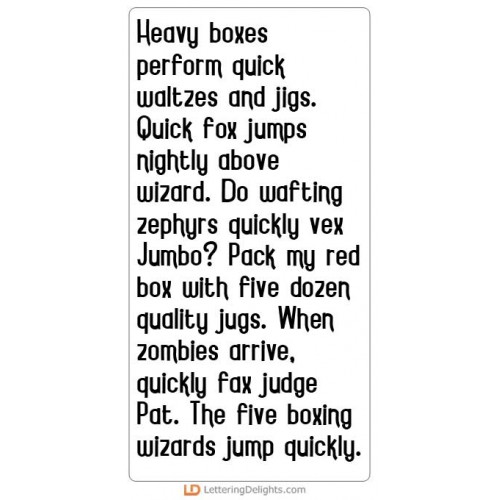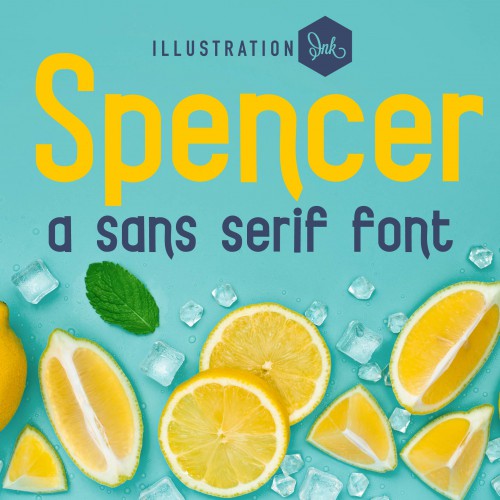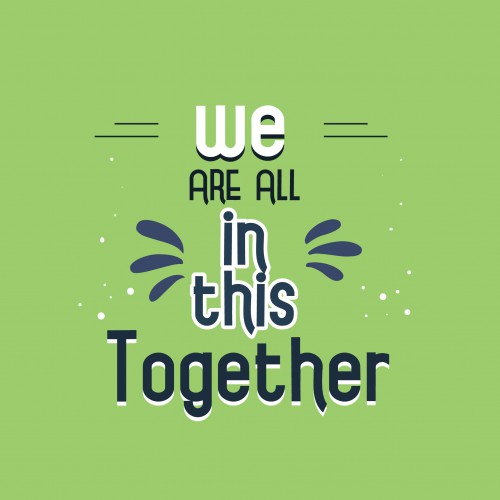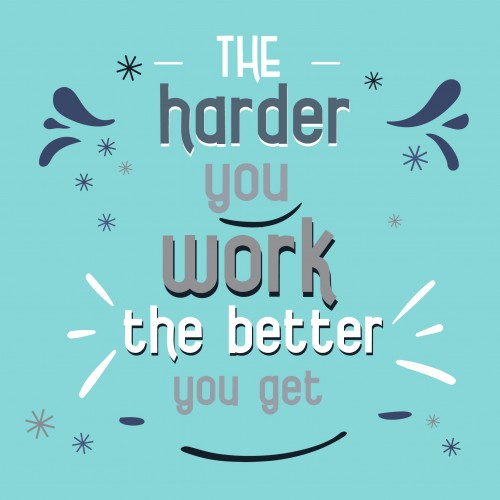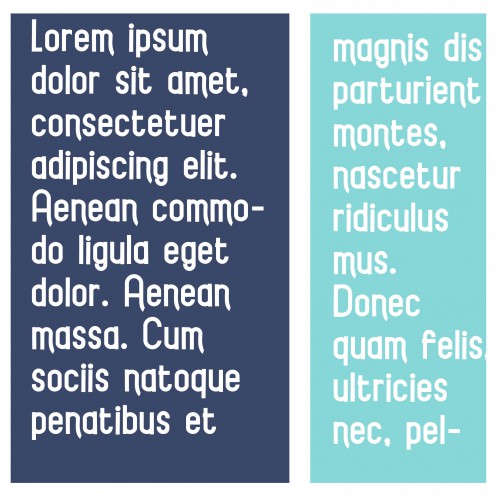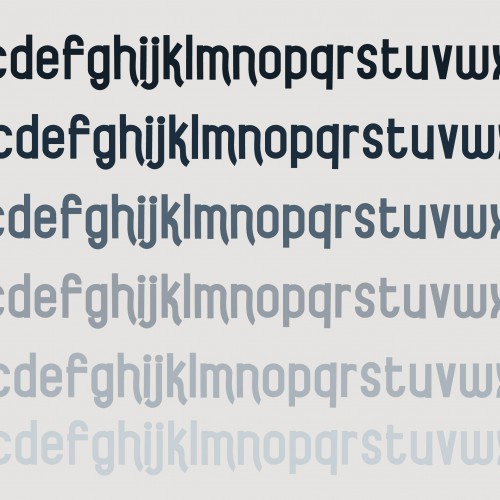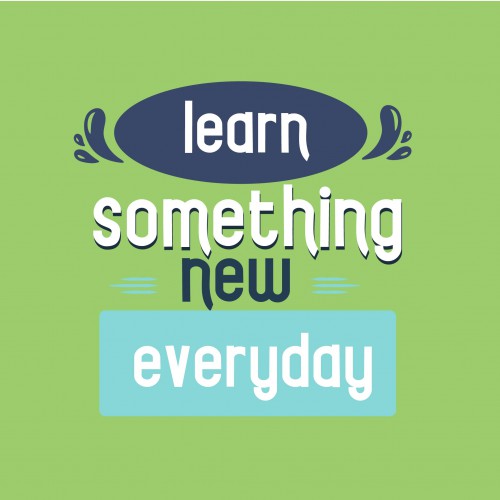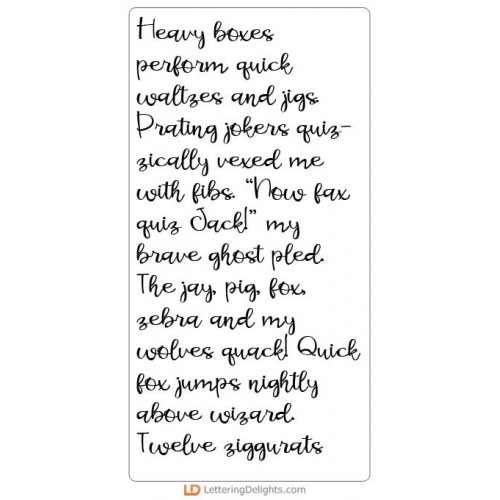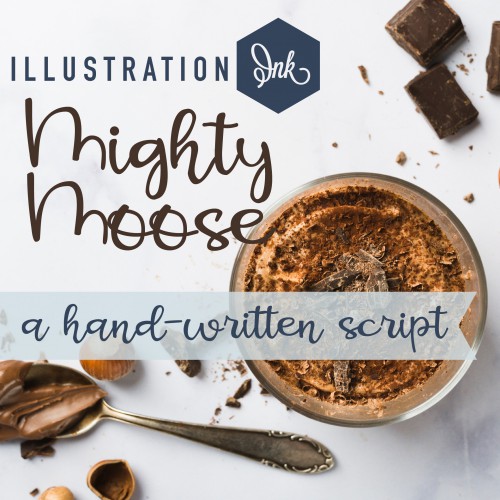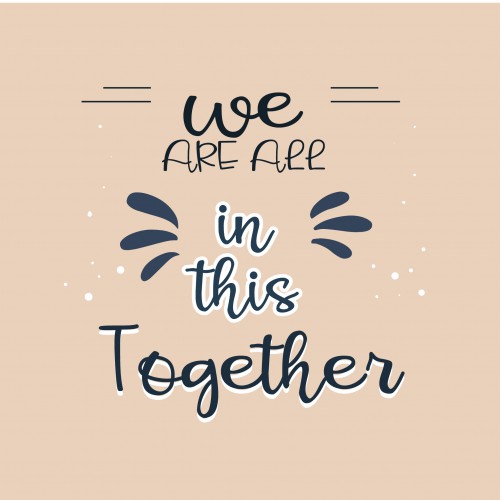
Silly Succulents - Big Bundle
This adorable collection features cute succulents, llamas, rainbows and puns perfect for cards, crafts, gifts, decor, planner stickers, scrapbook pages and more!
ZP Spencer Bold - FN
This simple sans serif has wide spacing a few little kicks...
ZP Mighty Moose - FN
This pretty, hand-written cursive is a casual script with bouncy baseline...
ZP Texburg - FN
This very simple sans serif is a typical sans with a bit of a hand-crafted feel..
ZP Texburg Bold - FN
This very simple sans serif is a typical sans with a bit of a hand-crafted feel..
ZP Nincaberry - FN
This rounded, chunky fat has a chubby appearance with no descenders in the lowercase...
ZP Nincaberry Bold - FN
This rounded, chunky fat has a chubby appearance with no descenders in the lowercase...